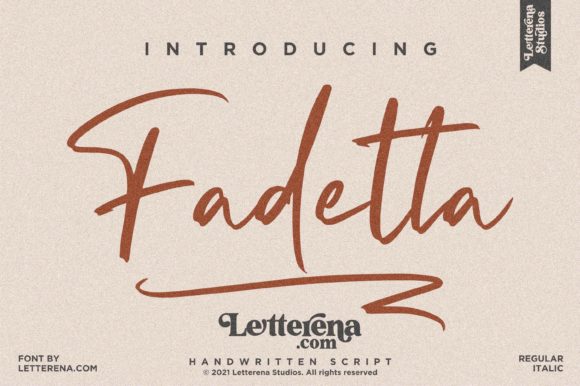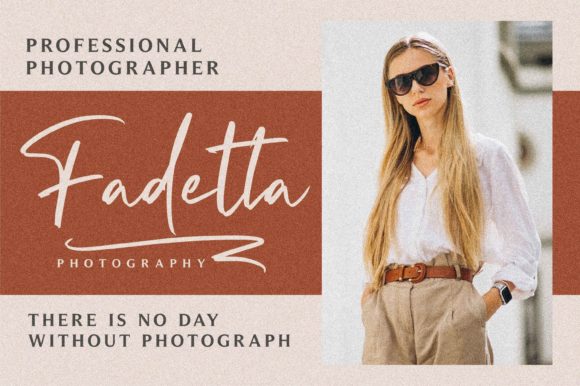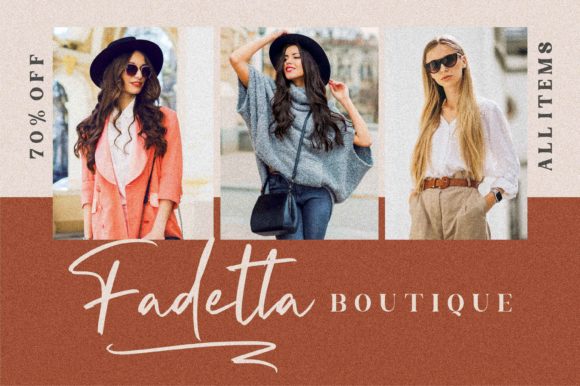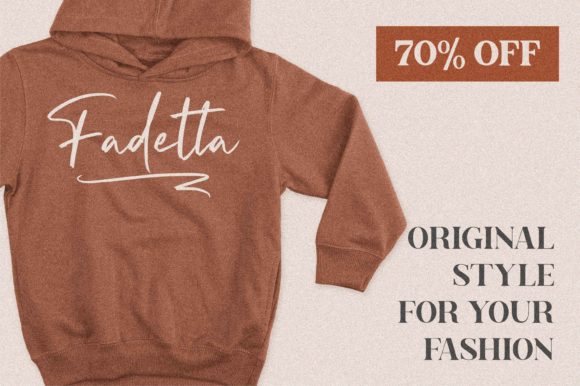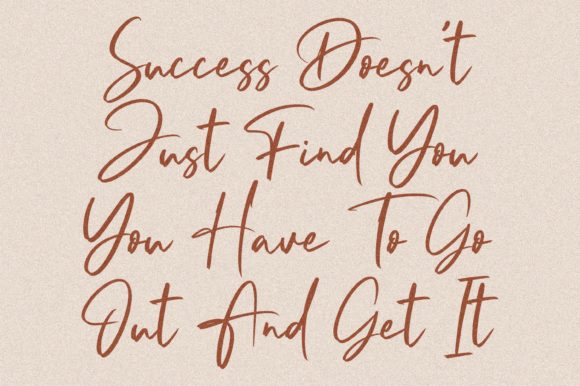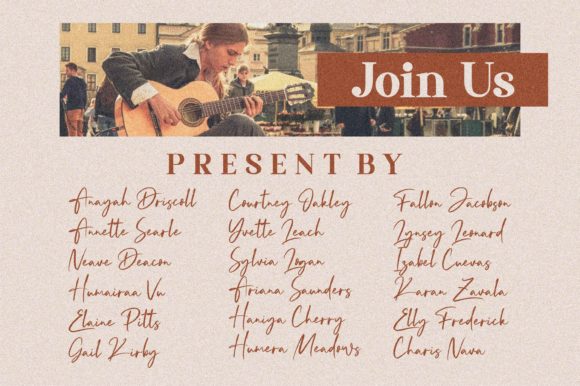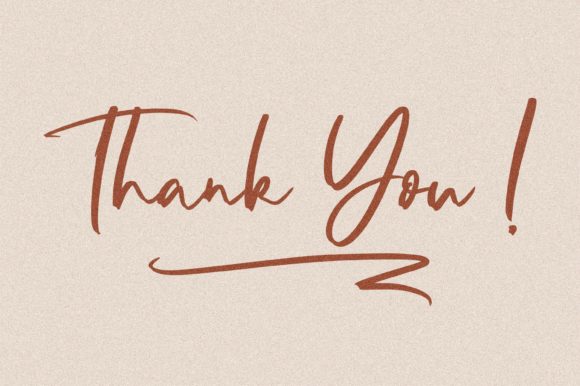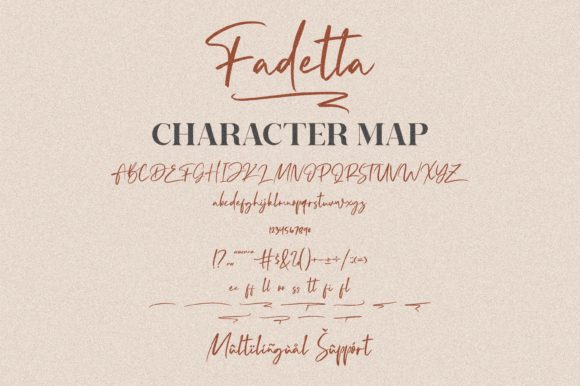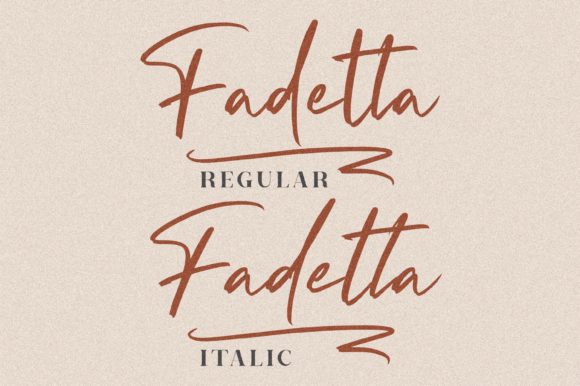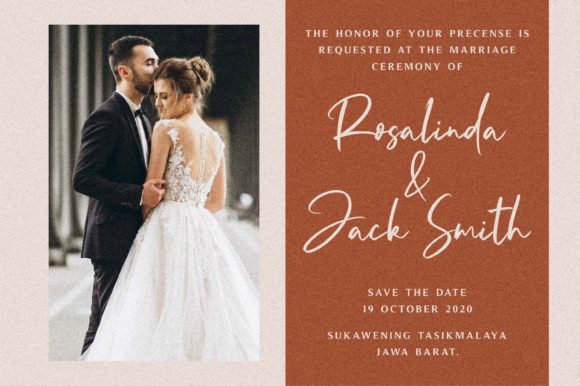
Fadetta Font
About Fadetta Font
Fadetta is a delicate and artsy paint brushed handwritten font that brings a unique and expressive touch to your designs. With its beautiful and irregular brush strokes, this font adds a sense of artistic flair and creativity to any project.
One of the standout features of Fadetta is its handcrafted appearance. Each letter is carefully designed to have a distinctive and beautiful touch, ensuring that your designs stand out and make a lasting impression. The irregularity and organic nature of the brush strokes give the font a sense of authenticity and character.
Fadetta is particularly well-suited for creating eye-catching logos and branding materials. Its artistic and painterly style adds a touch of creativity and uniqueness to your brand identity. Whether you’re designing for an art-related business, a boutique, or a creative agency, Fadetta can help you convey a sense of individuality and artistic expression.
Additionally, Fadetta is perfect for quotes and inspirational designs. The delicate brush strokes and handcrafted feel of the font add depth and emotion to your words, making them visually captivating and impactful. Whether you’re creating social media graphics, posters, or merchandise, Fadetta will bring your quotes to life and engage your audience.
Furthermore, Fadetta’s versatility extends beyond logos and quotes. It can be used in a variety of design projects where a touch of artistic elegance is desired. From packaging designs to invitations, from book covers to greeting cards, Fadetta adds a unique and captivating element that sets your designs apart.
In summary, Fadetta is a delicate and artsy paint brushed handwritten font that brings a unique and expressive touch to your designs. Its handcrafted appearance, distinctive brush strokes, and artistic flair make it ideal for creating eye-catching logos, branding materials, and quotes. Let Fadetta infuse your designs with creativity and beauty, and watch as they come alive with its artistic charm.